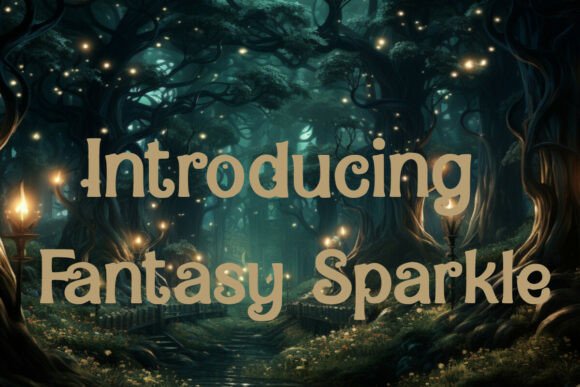
Unleash Your Creativity with Fantasy Sparkle Font
Are you a designer, crafter, or DIY enthusiast looking for a font that can add a touch of magic to your creative projects? Look no further than Fantasy Sparkle, an exceptional font designed to captivate and inspire. With its unique blend of whimsy and sophistication, Fantasy Sparkle is perfect for a wide range of applications, from apparel designs and branding to magazine headlines and social media graphics.
A Font for Every Creative Project
Fantasy Sparkle is a versatile font that can be used in various creative projects, including:
- Apparel Designs: Add a touch of sparkle to your t-shirt designs, hoodies, and other clothing items with Fantasy Sparkle. Its unique charm is sure to make your designs stand out.
- Branding: Create noteworthy branding materials, such as logos, business cards, and brochures, that showcase your brand’s personality and style.
- Magazine Headlines: Use Fantasy Sparkle to create eye-catching headlines and titles that grab attention and draw readers in.
- SVG Files: Fantasy Sparkle is perfect for SVG files, allowing you to create intricate designs and cut files for various projects.
- Greeting Cards: Add a touch of warmth and personality to your greeting cards with Fantasy Sparkle, making them truly special and memorable.
Perfect for Cricut Projects
Fantasy Sparkle is also perfectly suited for Cricut projects, allowing you to create stunning designs and cuts with ease. Whether you’re making custom vinyl decals, iron-on designs, or paper crafts, Fantasy Sparkle’s unique charm will shine through.
Make an Impression on Social Media
In today’s digital age, social media graphics are an essential part of any marketing strategy. Fantasy Sparkle can help you create stunning social media graphics that leave an indelible impression on your audience. From Facebook posts to Instagram stories, Fantasy Sparkle’s versatility and charm will make your graphics stand out.
More Than Just a Font
Fantasy Sparkle is more than just a font – it’s a design solution that can be used in a wide range of applications, including:
- Poster Designs: Create stunning poster designs that showcase your creativity and style.
- Stickers: Add a touch of sparkle to your stickers and make them truly irresistible.
- and more: Fantasy Sparkle’s versatility knows no bounds, making it perfect for various design realms and projects.
Why Choose Fantasy Sparkle?
So, why choose Fantasy Sparkle over other fonts? Here are just a few reasons:
- Unique Charm: Fantasy Sparkle has a unique blend of whimsy and sophistication that sets it apart from other fonts.
- Versatility: Fantasy Sparkle can be used in a wide range of applications, making it a valuable addition to any designer’s toolkit.
In conclusion, Fantasy Sparkle is an exceptional font that can add a touch of magic to your creative projects. With its unique charm, versatility, and ease of use, Fantasy Sparkle is perfect for designers, crafters, and DIY enthusiasts looking to create stunning designs that leave a lasting impression. So why wait? Indulge in the captivating allure of Fantasy Sparkle today and unleash your creativity!